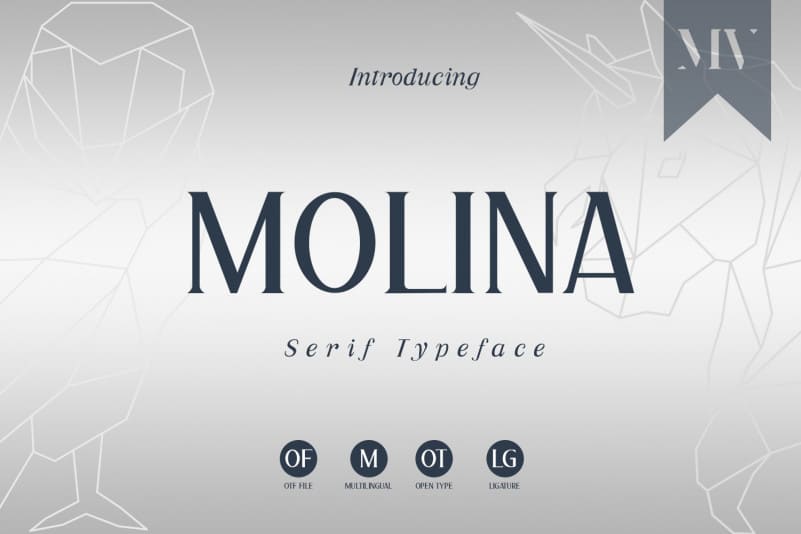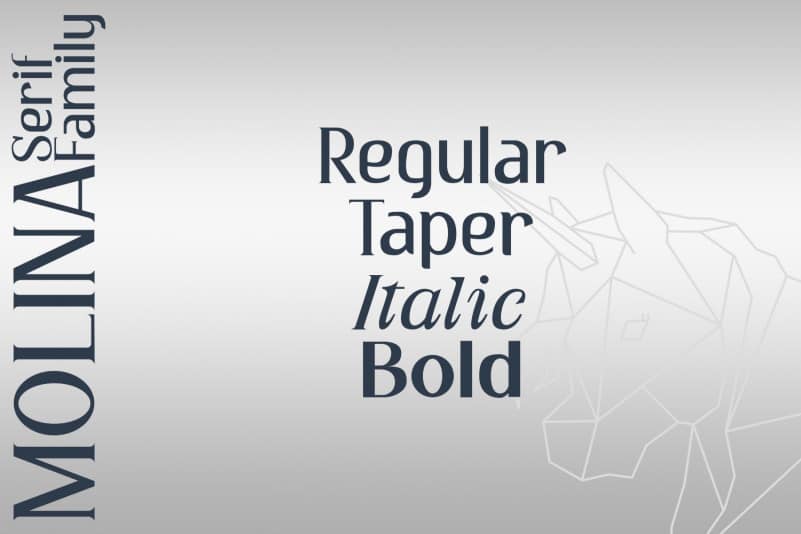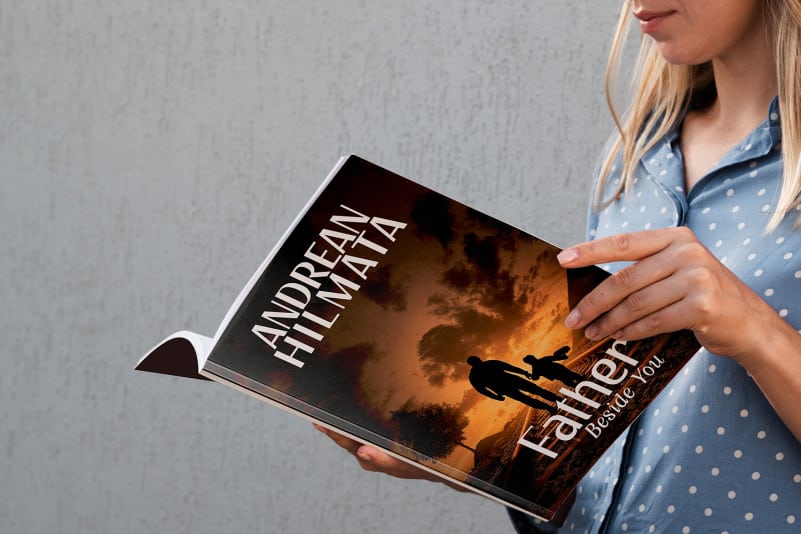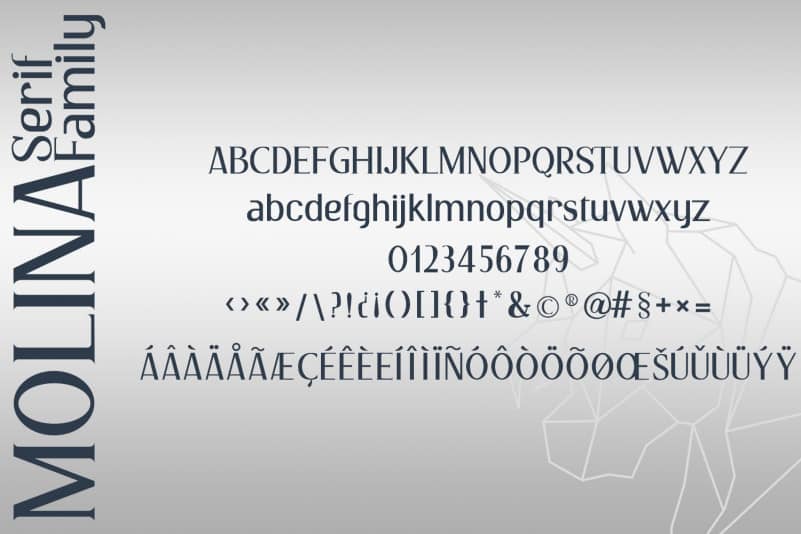
Molina Serif Font
Molina Serif Font, from Muhammad Afif, is a modern, elegant and creative serif font. Molina Serif Font is contains uppercase, lowercase, number, punctuation, symbols and some other glyphs. Kiano will look great for; logotypes, business cards, labels, flyers, apparel, stationery, brochures, headlines, invitations, wedding designs, social media posts, advertisements, product packaging, product designs, photography, watermark, special events and more.